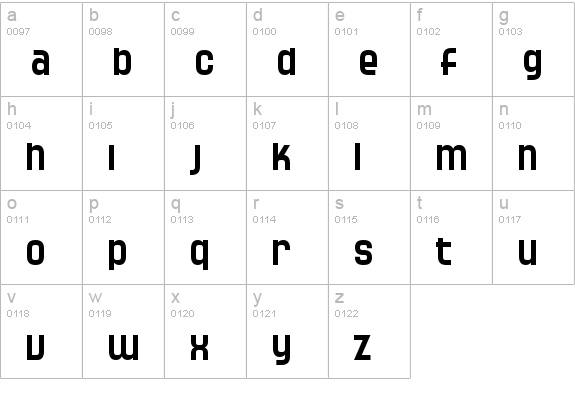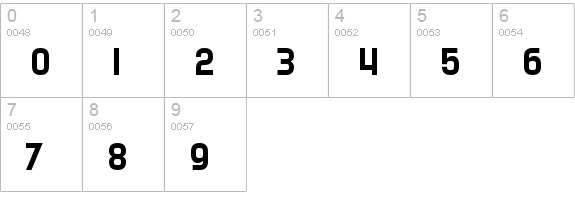
Introducing the sensational SF Speedwaystar font - a bold and dynamic typeface that is set to revolutionize your design projects. With its sleek lines and modern aesthetic, this font is perfect for capturing attention and adding a touch of sophistication to any design. But what sets SF Speedwaystar apart from the rest is its availability for free download at FontsMarket.com. That's right, you can now access this incredible font without having to spend a dime. Whether you are a professional designer looking to elevate your creations or a passionate individual seeking to add a unique flair to personal projects, SF Speedwaystar is the ideal font to meet your needs. Designed with versatility in mind, SF Speedwaystar is perfect for a wide range of applications. From eye-catching logos and captivating headlines to stylish packaging designs and trendy social media posts, this font will effortlessly convey your message with style and impact. The clean and precise letterforms of SF Speedwaystar ensure legibility, while its distinct character adds an extra layer of personality to your designs. The font's smooth curves and balanced proportions create a harmonious visual experience, making it a joy to work with. Whether you are designing for print or digital media, SF Speedwaystar is a reliable choice that will never disappoint. Its wide range of weights and styles allow you to experiment and create unique combinations that suit your specific project requirements. So why wait? Take advantage of this amazing opportunity to download SF Speedwaystar for free at FontsMarket.com and unlock a world of possibilities for your designs. Let SF Speedwaystar be the driving force behind your creative endeavors, and watch as your projects race towards success.